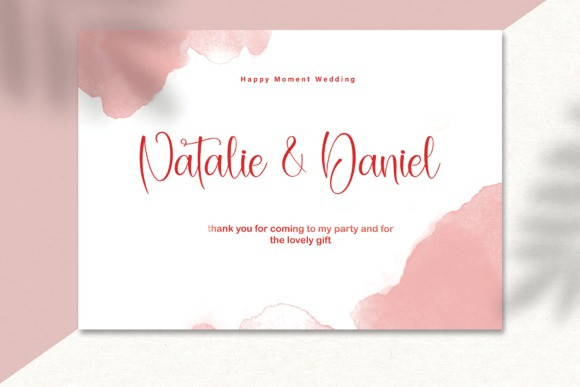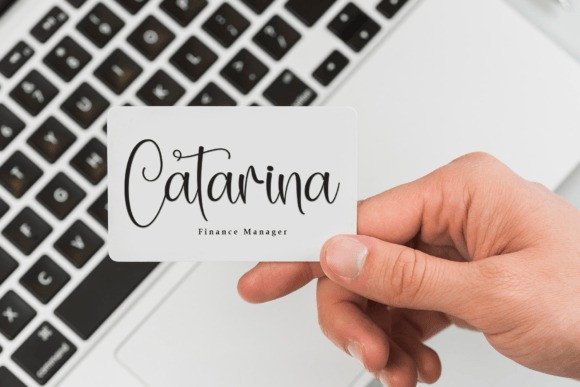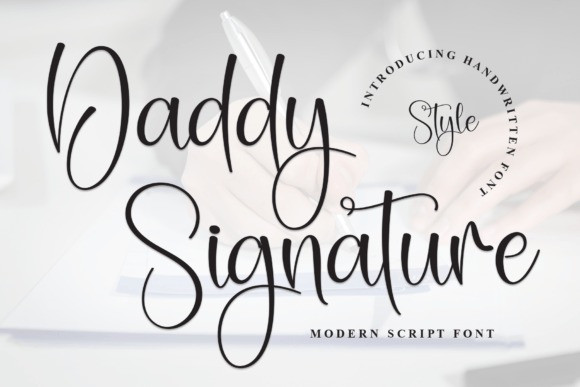
Daddy Signature Script Font is a sleek and modern calligraphy font that adds a touch of sophistication to your projects. With smooth, flowing lines, it captures the essence of a handwritten signature, making your text stand out with a contemporary flair. Ideal for a range of applications, from invitations to branding, Daddy Signature brings an elegant and personalized touch to your designs. Elevate your typography with this stylish and versatile font for a sleek and polished look.